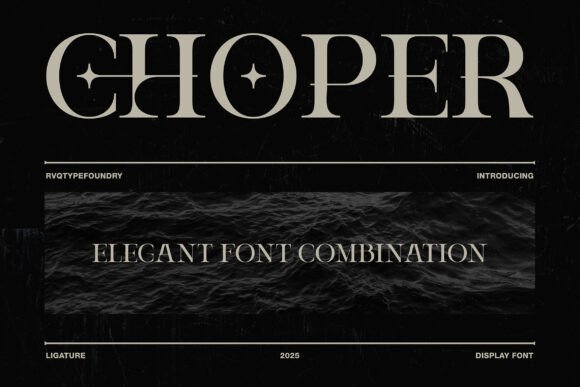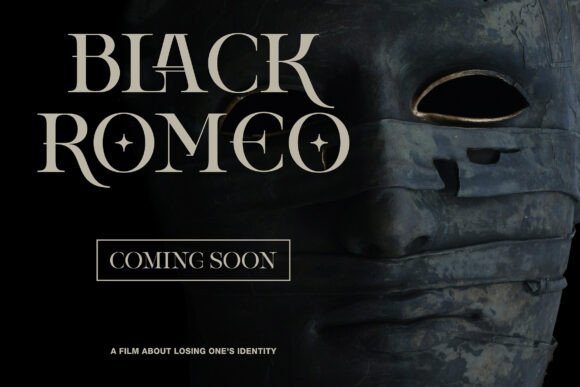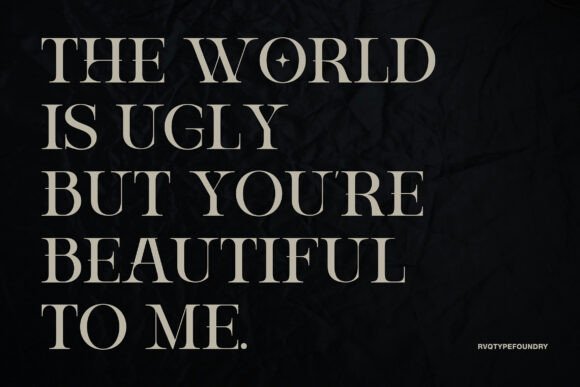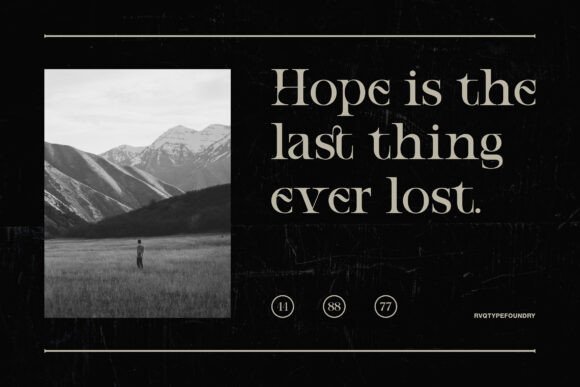
Choper Font: Elegant Serif with Ligatures for Timeless Branding
About the Choper Font
Experience the unique personality of Choper Font, a font designed for impact. Choper is a sophisticated and elegant serif font with a touch of vintage charm. Featuring refined ligatures and stylish letterforms, this typeface exudes luxury and timeless appeal. Perfect for branding, editorial design, high-end packaging, and stylish headlines, Choper is the ultimate choice for projects that demand class and sophistication. Its balance of modern and classic aesthetics makes it a versatile must-have for any designer.